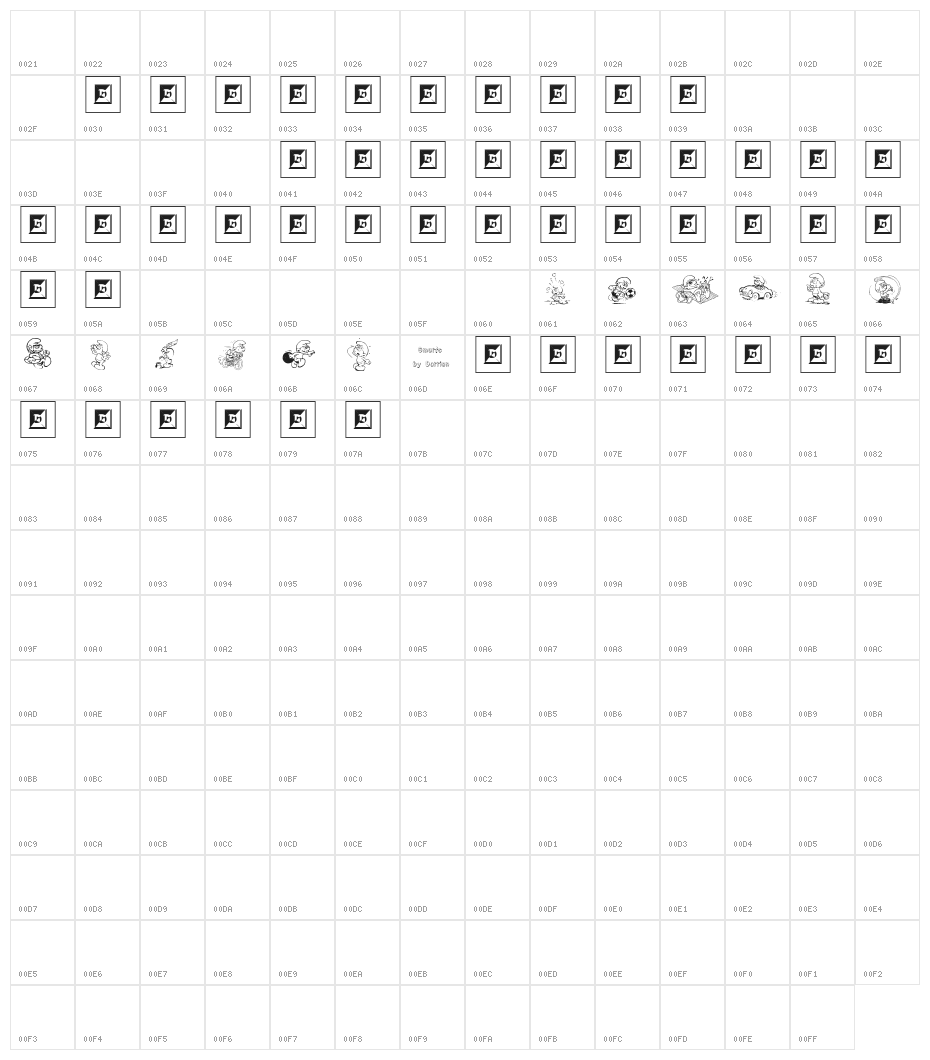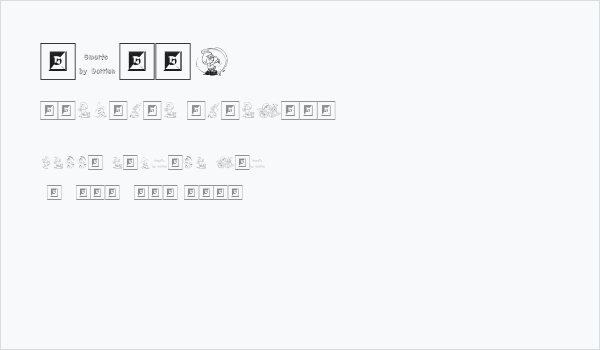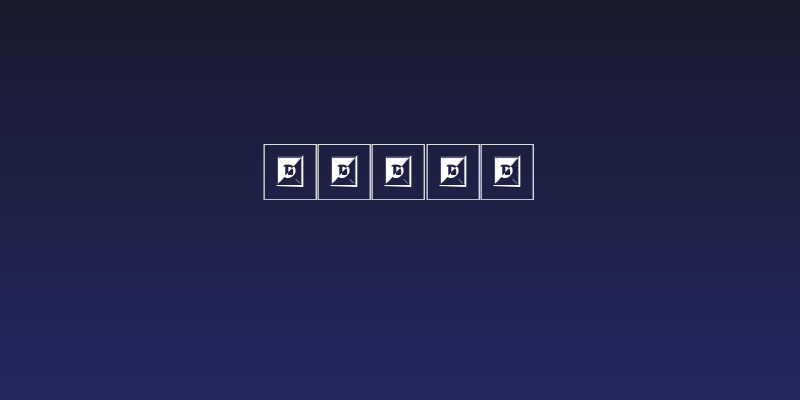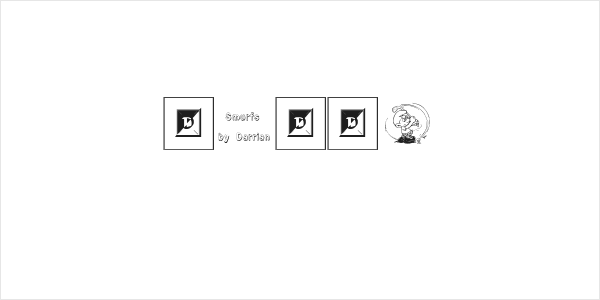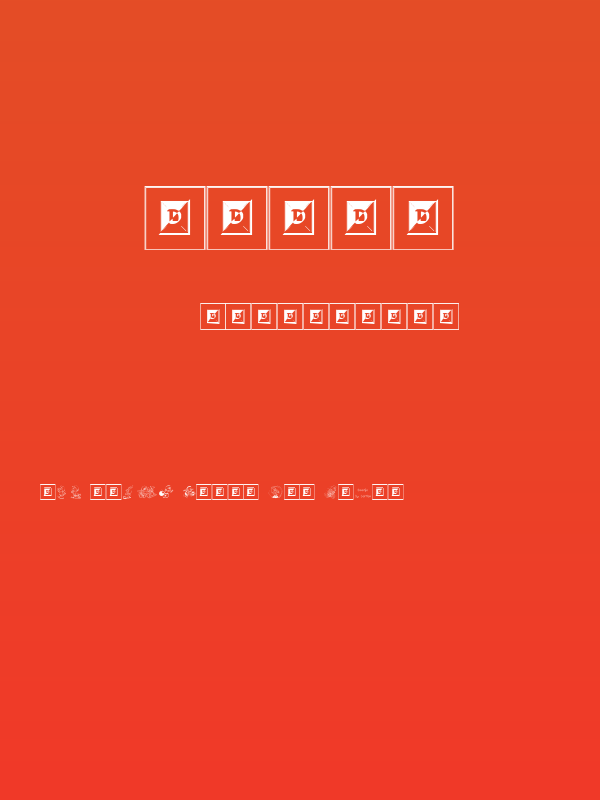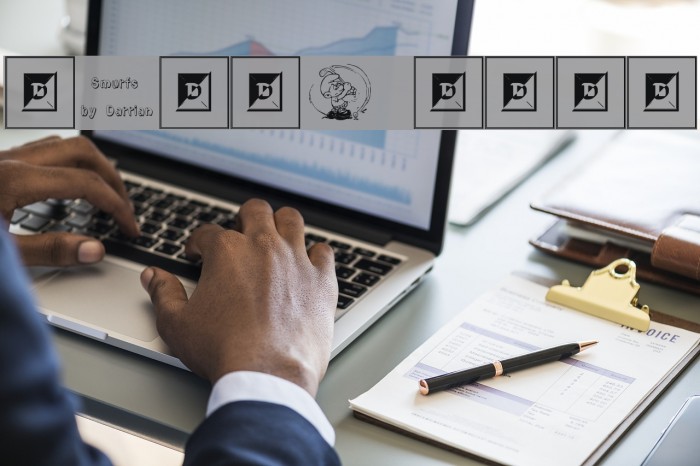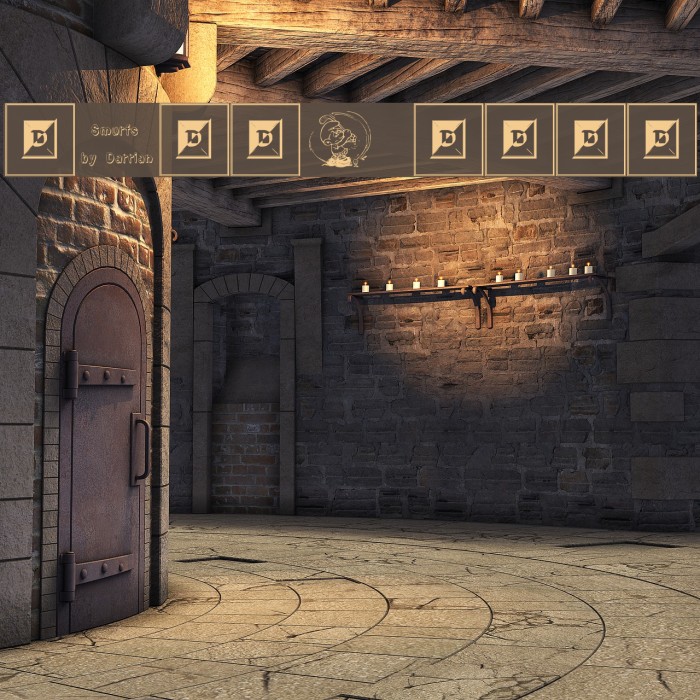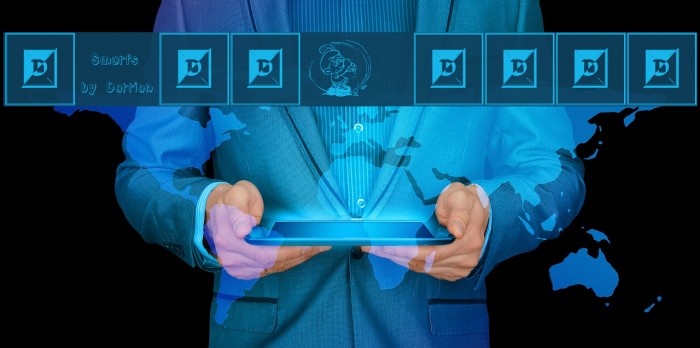
Smurf Font
Smurf Description
A decorative display font featuring detailed cartoon illustrations of Smurf characters for each letter and number, with playful and whimsical line art. The glyphs are highly stylized and not traditional letterforms, focusing on character art rather than text readability.
| Overall Style | Decorative, Playful, Cartoonish |
| Use Case | Logos, Posters, Themed Headlines, Children's Materials |
| Proposed Projects | Children's books, themed party invitations, comic strips, playful branding, novelty posters. |